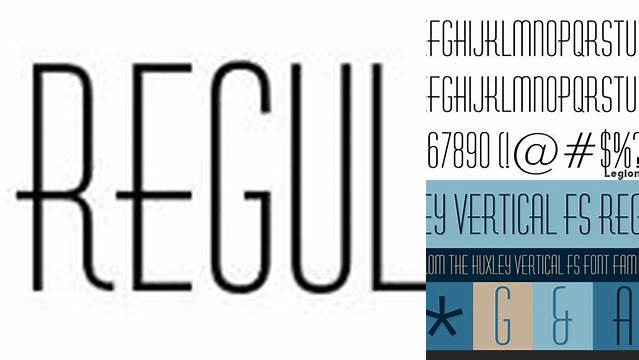
Hey guys! Are you on the hunt for the perfect font to spice up your design projects? Look no further! Today, we're diving deep into the world of Huxley Vertical STD Regular, a font that’s both sleek and versatile. Finding the right font can sometimes feel like searching for a needle in a haystack, but trust me, this one's worth the effort. Whether you're working on a branding project, a website design, or even just a cool poster, Huxley Vertical STD Regular can add that touch of elegance and professionalism you've been craving. We'll explore everything from where to download it for free (yes, you heard that right!) to how to best use it in your designs. So, buckle up and let's get started on this fontastic journey!
Huxley Vertical STD Regular: What Makes It Special?
Before we jump into the nitty-gritty of huxley vertical std regular font free download, let’s talk about what makes this font so special. Huxley Vertical STD Regular is a sans-serif font that boasts clean lines and a modern aesthetic. Its vertical emphasis gives it a unique, contemporary feel, making it stand out from more traditional fonts. This font is incredibly versatile, fitting seamlessly into a wide range of design contexts. Think about it – from corporate branding to editorial layouts, Huxley Vertical STD Regular can handle it all with grace and style. The balanced letterforms ensure readability, which is crucial whether you’re designing for print or digital media. It's not just about looking good; it’s about communicating effectively. And that's where Huxley Vertical STD Regular truly shines. So, what makes it different? It’s the perfect blend of modernity, readability, and versatility, making it a must-have in any designer’s toolkit.
Huxley Vertical STD Regular vs. Other Similar Fonts
Now, you might be wondering, how does huxley vertical std regular font stack up against other similar fonts? Great question! In the world of typography, there are countless sans-serif fonts, each with its own unique characteristics. Fonts like Helvetica, Arial, and Futura are often compared to Huxley Vertical STD Regular due to their clean, modern designs. However, Huxley Vertical STD Regular sets itself apart with its distinctive vertical emphasis and balanced letterforms. While Helvetica and Arial are widely used and versatile, they can sometimes feel a bit generic. Futura, on the other hand, has a more geometric and stylized appearance. Huxley Vertical STD Regular strikes a sweet spot between these extremes, offering a contemporary yet approachable feel. Its readability and versatility make it a strong contender for various design applications. So, while there are many excellent sans-serif fonts out there, Huxley Vertical STD Regular brings a unique flavor to the table, making it a worthy addition to your font collection.
Designing with Huxley Vertical STD Regular: Best Practices
So you've got your huxley vertical std regular font free download, now what? Let’s talk about the best ways to use this fantastic font in your designs. First and foremost, consider the context of your project. Huxley Vertical STD Regular shines in modern and minimalist designs, where its clean lines and vertical emphasis can truly make an impact. Think about using it for headlines and subheadings to create a strong visual hierarchy. In body text, it maintains excellent readability, ensuring your message comes across clearly. Pair it with contrasting fonts for added visual interest – a serif font like Times New Roman or Garamond can create a beautiful balance. When using Huxley Vertical STD Regular, pay attention to spacing and kerning to ensure a polished and professional look. Too much or too little spacing can detract from the font’s elegance. Experiment with different weights and styles to find the perfect combination for your project. And remember, less is often more. Huxley Vertical STD Regular is a powerful font, so let it speak for itself by keeping your designs clean and uncluttered.
Huxley Vertical STD Regular in Branding Projects
When it comes to branding, choosing the right font is crucial. It's the visual voice of your brand, and huxley vertical std regular font can be an excellent choice for conveying a modern and sophisticated image. Its clean lines and vertical emphasis make it ideal for logos, website headers, and marketing materials. Think about some of the most successful brands – many of them use sans-serif fonts to project a sense of clarity and innovation. Huxley Vertical STD Regular fits perfectly into this category, offering a contemporary yet timeless appeal. When using this font in your branding projects, consistency is key. Establish a clear typography style guide that outlines how and where to use Huxley Vertical STD Regular across all your brand touchpoints. This will help ensure a cohesive and professional brand identity. Consider the color palette and overall aesthetic of your brand as well. Huxley Vertical STD Regular pairs well with a variety of colors and design styles, but it truly shines in minimalist and modern contexts. So, if you're looking to create a brand that exudes sophistication and clarity, Huxley Vertical STD Regular might just be the perfect font for you.
Using Huxley Vertical STD Regular for Website Design
In the realm of website design, typography plays a pivotal role in user experience. A well-chosen font can enhance readability, guide the user’s eye, and contribute to the overall aesthetic. Huxley vertical std regular font is a fantastic option for websites aiming for a modern and clean look. Its clear letterforms and vertical emphasis make it easy to read on screens, which is essential for keeping visitors engaged. Think about how often you’ve bounced off a website simply because the text was difficult to read – don’t let that happen to your site! Huxley Vertical STD Regular works well for both headings and body text, offering versatility in your design. When using it for website design, consider factors like font size, line height, and contrast. Ensuring sufficient contrast between the text and background is crucial for readability. Experiment with different font weights and styles to create visual hierarchy and guide users through your content. And don’t forget about mobile responsiveness! Make sure your font choices look great on all devices. With its modern appeal and excellent readability, Huxley Vertical STD Regular can help you create a website that’s both visually stunning and user-friendly.
Huxley Vertical STD Regular in Print Design
While digital design often steals the spotlight, print design remains a vital part of many projects. And guess what? Huxley vertical std regular font shines in print just as brightly as it does online. Its clean lines and balanced letterforms translate beautifully to printed materials, making it an excellent choice for brochures, posters, magazines, and more. Think about the tactile experience of holding a well-designed print piece – the font plays a crucial role in that experience. Huxley Vertical STD Regular adds a touch of sophistication and professionalism, making your printed materials stand out. When using this font in print design, consider factors like paper stock, ink color, and layout. The texture and color of the paper can influence how the font appears, so it’s essential to choose materials that complement the font’s aesthetic. Pay attention to kerning and spacing to ensure a polished and professional look. And don’t be afraid to experiment with different sizes and weights to create visual interest. Whether you’re designing a sleek business card or a captivating magazine spread, Huxley Vertical STD Regular can help you achieve a stunning result.
Pairing Huxley Vertical STD Regular with Other Fonts
One of the keys to great typography is knowing how to pair fonts effectively. Huxley vertical std regular font is versatile enough to work well with a variety of other fonts, but finding the right combinations can elevate your designs to the next level. Think about creating contrast and visual interest by pairing it with a serif font for body text. A classic serif like Garamond or Times New Roman can provide a beautiful counterpoint to Huxley Vertical STD Regular’s modern sans-serif style. Alternatively, you could pair it with a more decorative or script font for headings to add a touch of personality and flair. When pairing fonts, it’s essential to consider the overall tone and message of your design. Do you want to convey a sense of elegance and sophistication? Or are you aiming for a more playful and casual vibe? The fonts you choose should reflect and reinforce your design’s purpose. Experiment with different combinations and don’t be afraid to break the rules – sometimes the most unexpected pairings can yield the most stunning results. Just remember to maintain balance and ensure readability remains a top priority. With a little creativity and experimentation, you can discover font pairings that truly make your designs sing.